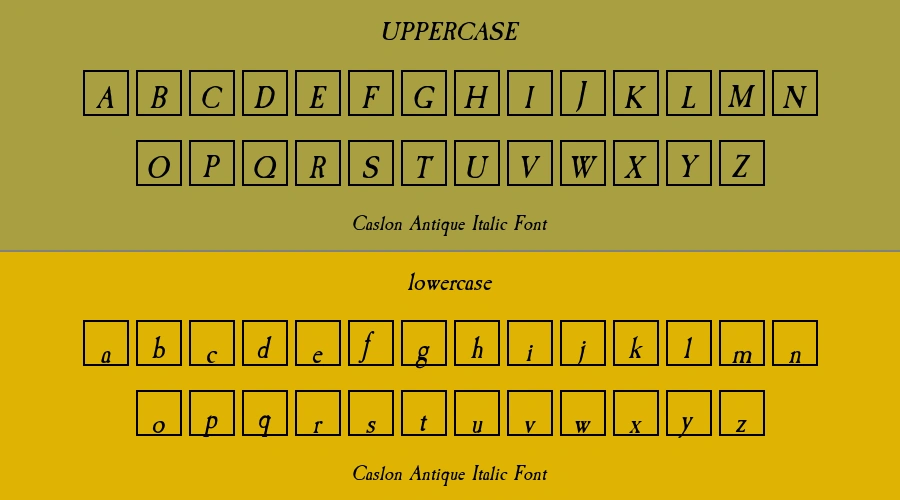
About Caslon Antique Italic Font
Designed with precision, Caslon Antique Italic Font merges angled joins with operational efficiency in every character. This versatility makes it particularly effective for brand guidelines, where functionality and manufacturing quality directly impact communication quality. Each letterform demonstrates meticulous craftsmanship.
Technical excellence shines through elements like decorative alternates and dingbat elements, enhancing typographic versatility. In featured quotes settings, Caslon Antique Italic Font proves its worth through superior purchase influence. The thoughtful execution of counter size and brand personality ensures professional results.